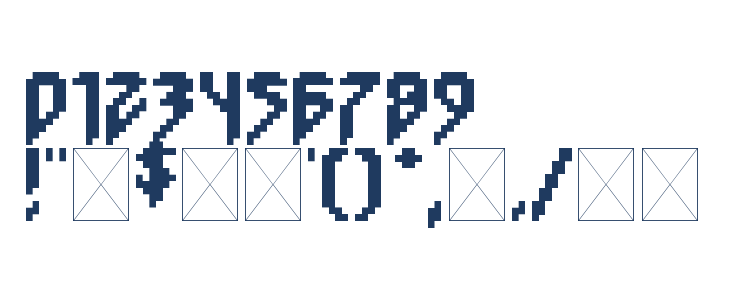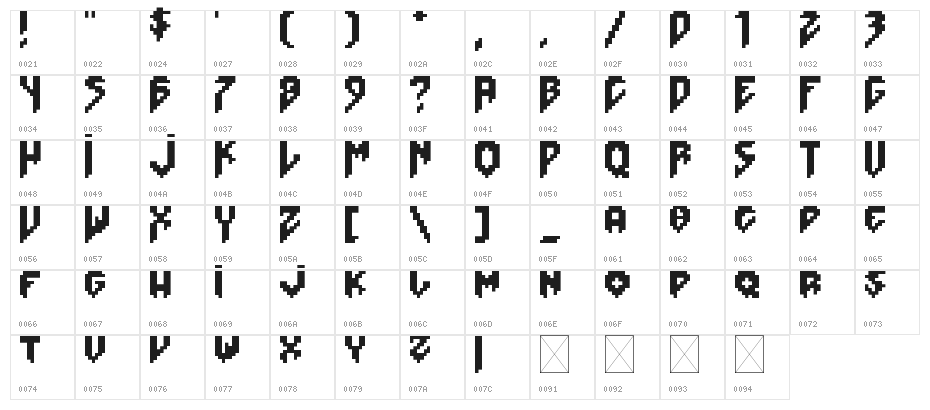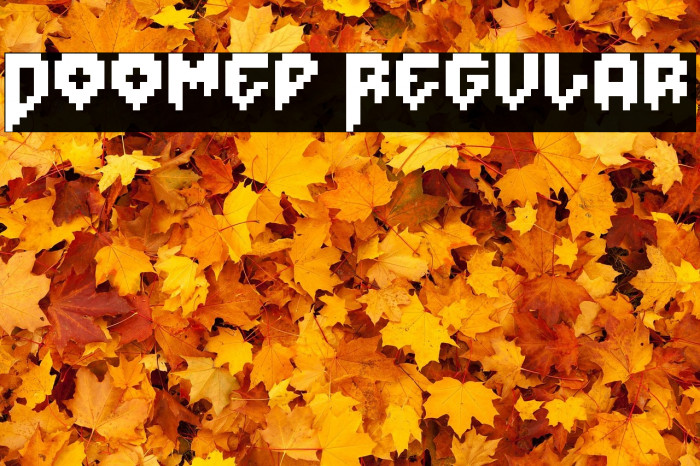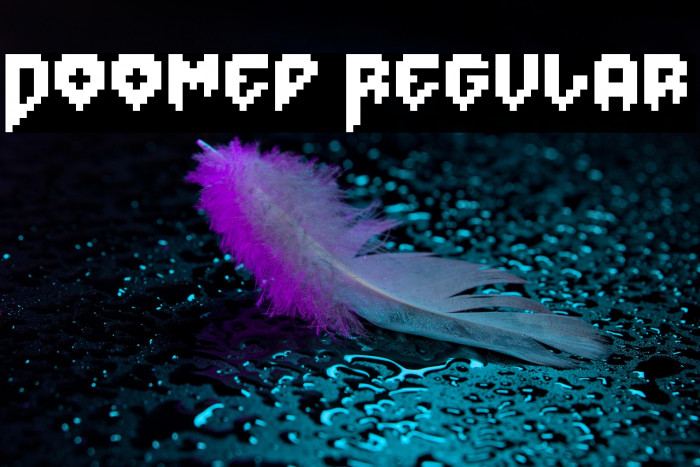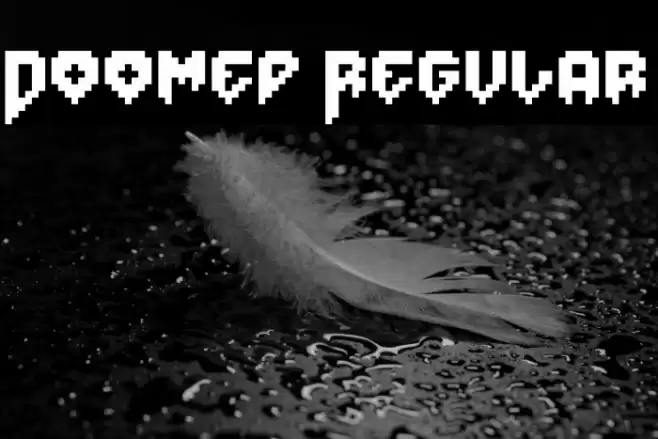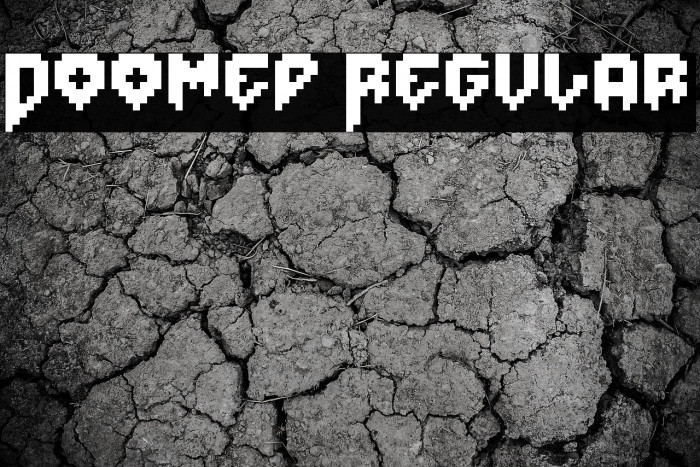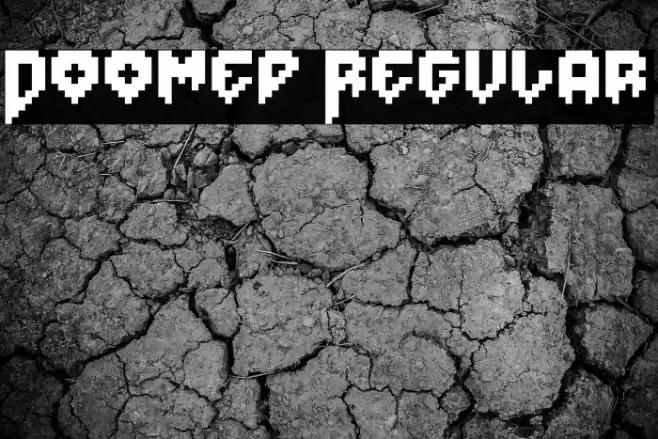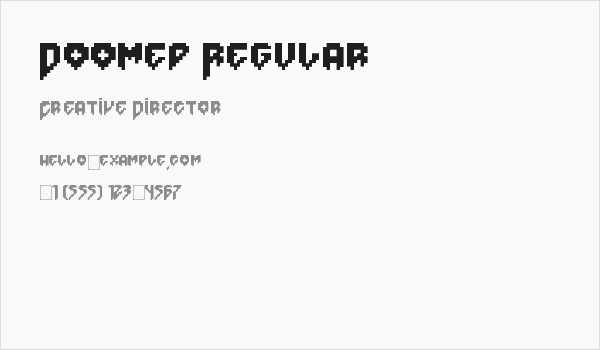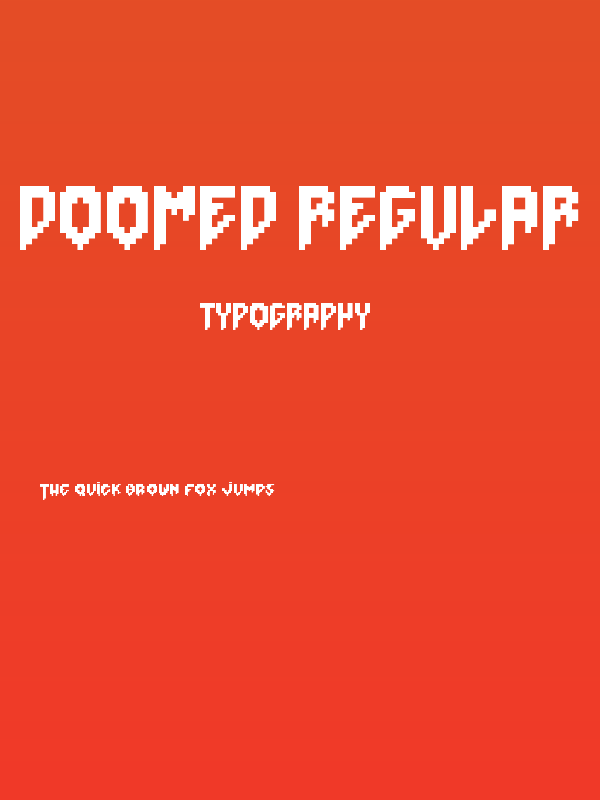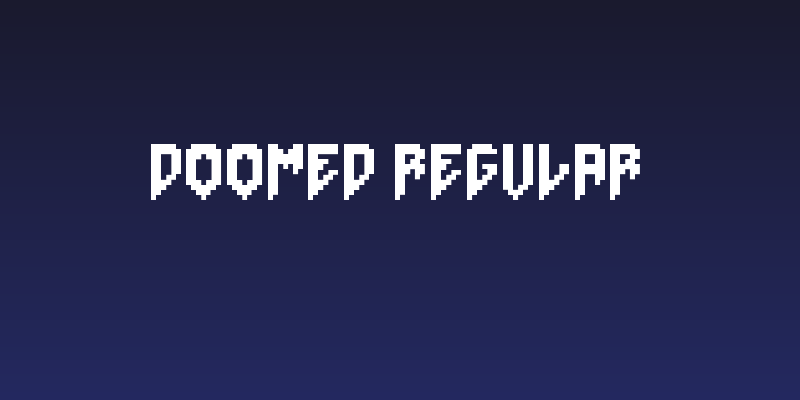
Doomed Regular Font
Doomed Regular Description
This font features a bold, pixelated design with sharp, angular edges that give it a distinctly digital and retro appearance. The characters are uniformly styled, maintaining a consistent blocky aesthetic across both uppercase and lowercase letters, as well as numbers and special characters. The font's geometric structure and high contrast between the thick strokes and the negative space create a striking visual impact, making it ideal for attention-grabbing designs. Its unique style is reminiscent of early video game graphics, offering a nostalgic yet modern feel.